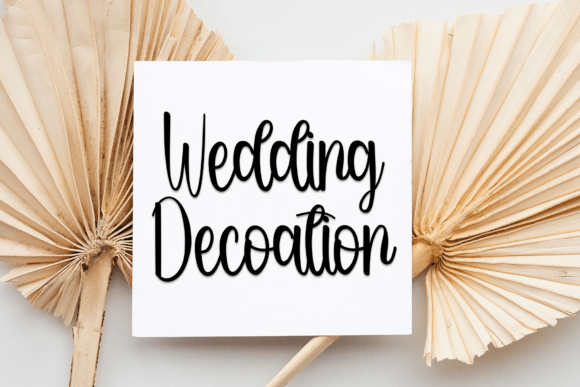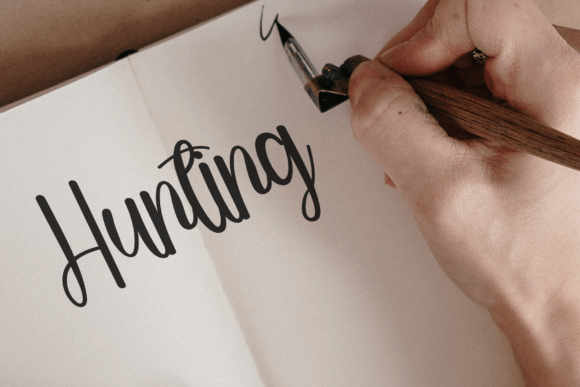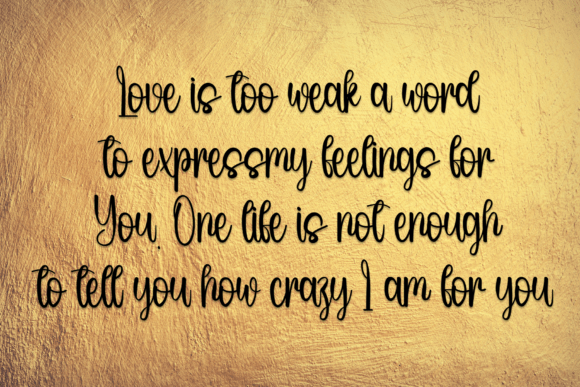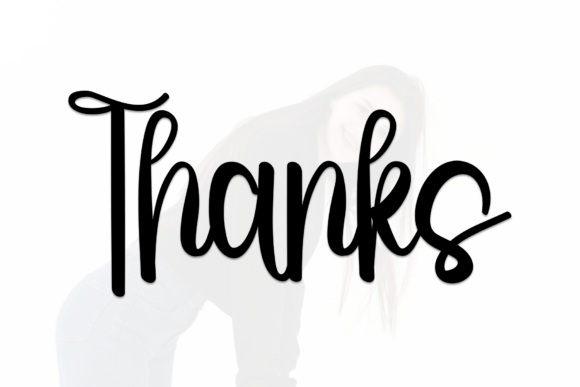
Introduction to Christmas Mama Font
Christmas Mama is a charming handwritten font filled with a sense of heartfelt perfection.
Its smooth strokes and organic lines evoke a relaxed atmosphere, making it perfect for a variety of design projects Whether used for branding, invitations or social media graphics.
Key Features of Christmas Mama Font